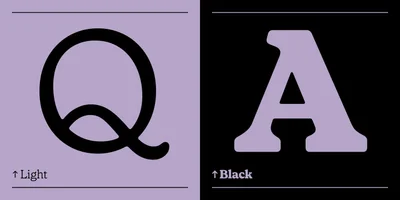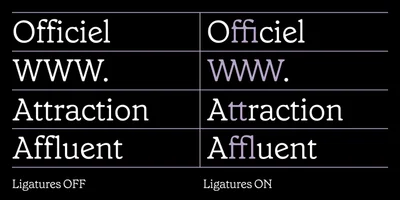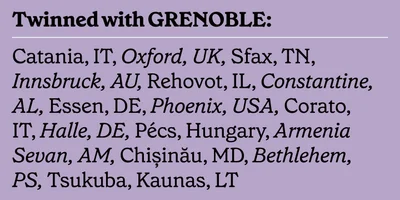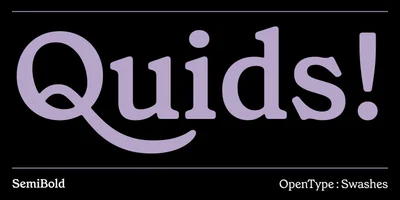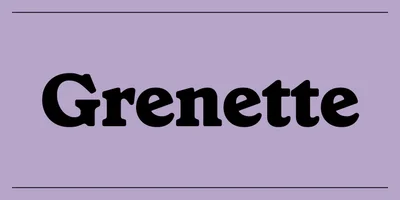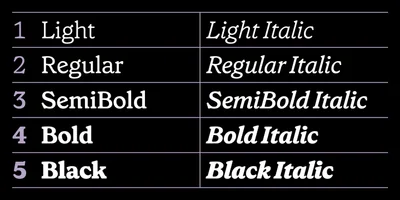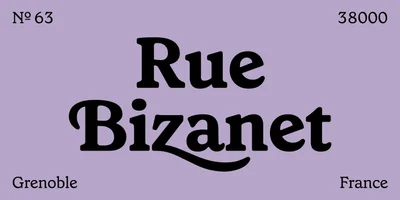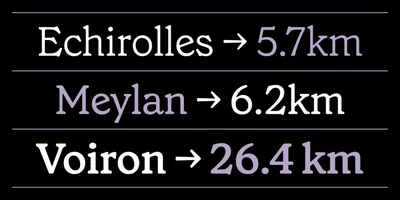
Playfair Display vs Grenette
Playfair Display is a popular open-source alternative to Grenette's display design. At 70% similarity, Playfair Display delivers a elegant, classic aesthetic. Compare which works better for display and editorial projects.
| Feature | Playfair Display | Grenette |
| Variable Font | Yes | Yes |
| Weights | Variable (100-900) | Variable |
| Language Support | latin, latin-extended, cyrillic, vietnamese | latin, latin-extended |
| Metric | Playfair Display | Grenette |
| Score | 62/100 | N/A |
| Weights | 9 (var) | N/A |
| Italics | Yes | N/A |
| Variable Font | Yes (2 axes) | N/A |
| Language Groups | 4 | N/A |
| x-Height Ratio | 0.514 | N/A |
| Cap Height Ratio | 0.708 | N/A |
Recommended: Playfair Display
- Variable font with continuous weight adjustment
- Supports 4 scripts including cyrillic and vietnamese
- Delivers a elegant, classic, sophisticated aesthetic
- Popular in legal-law and education-academia design
Consider: Grenette
- Designed specifically for display and editorial